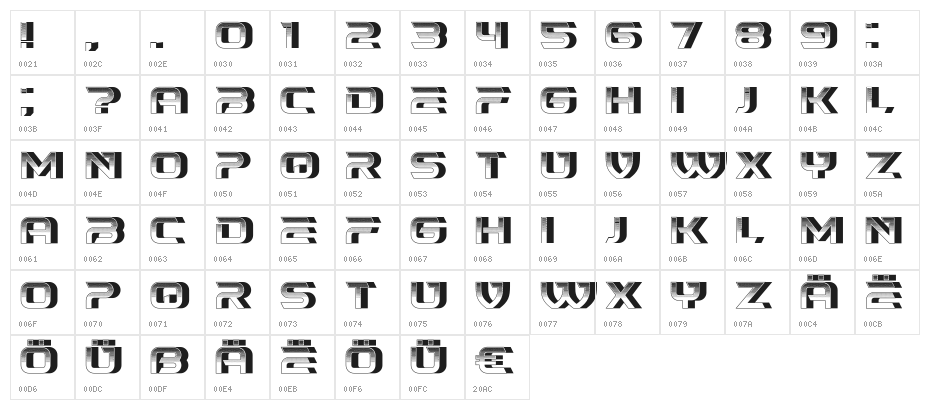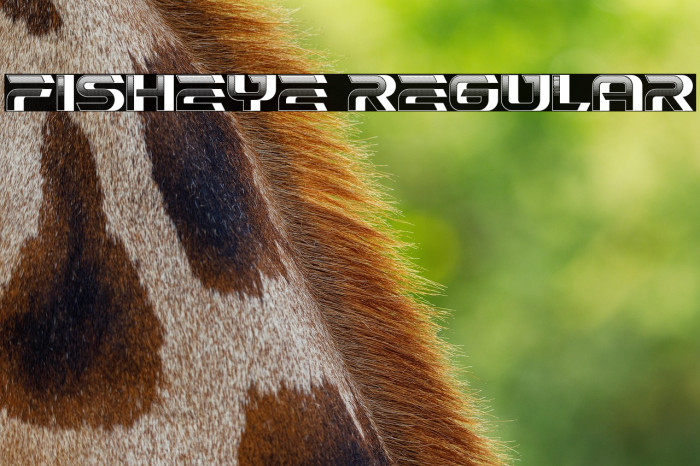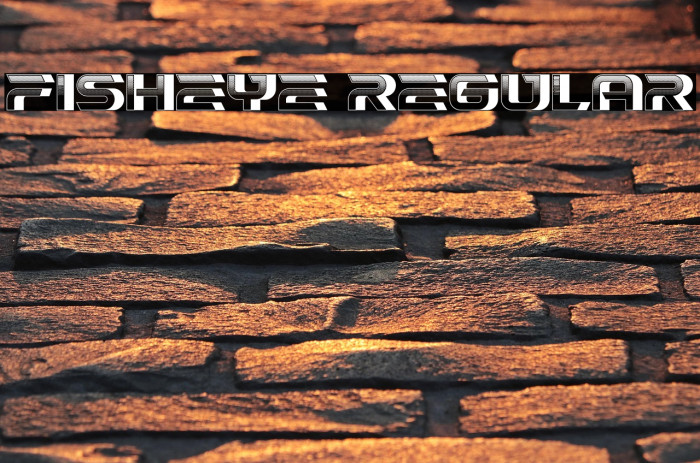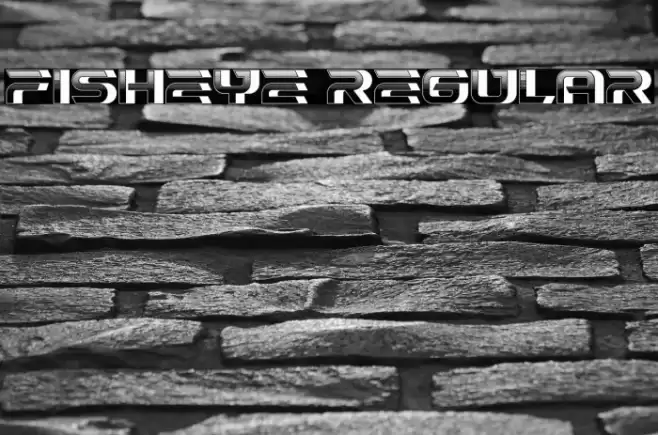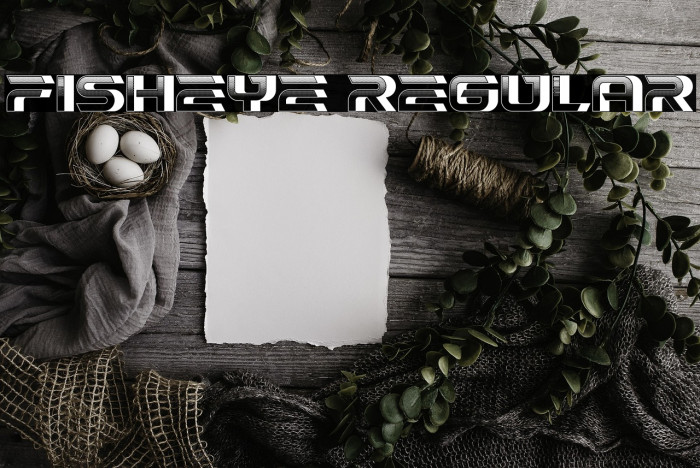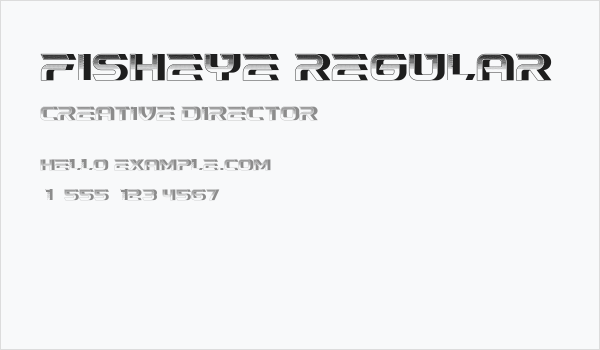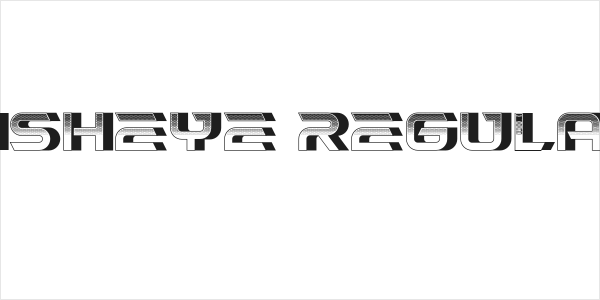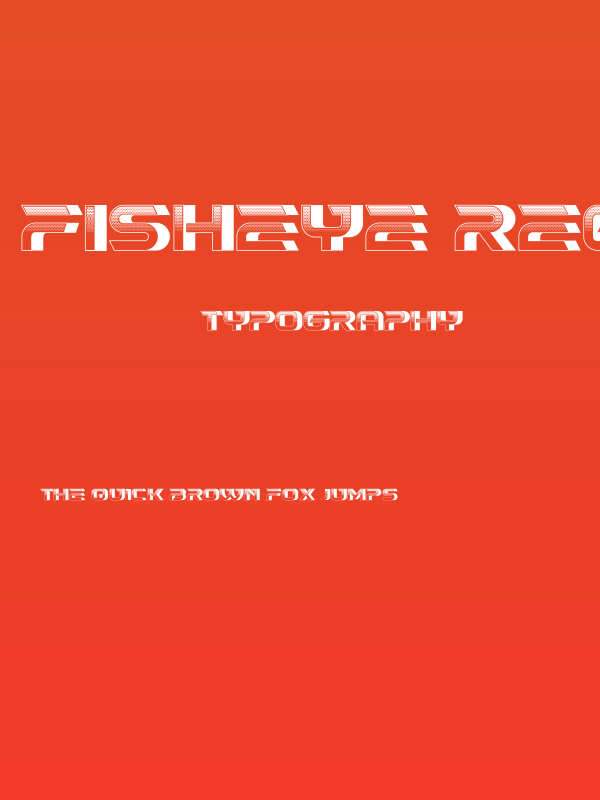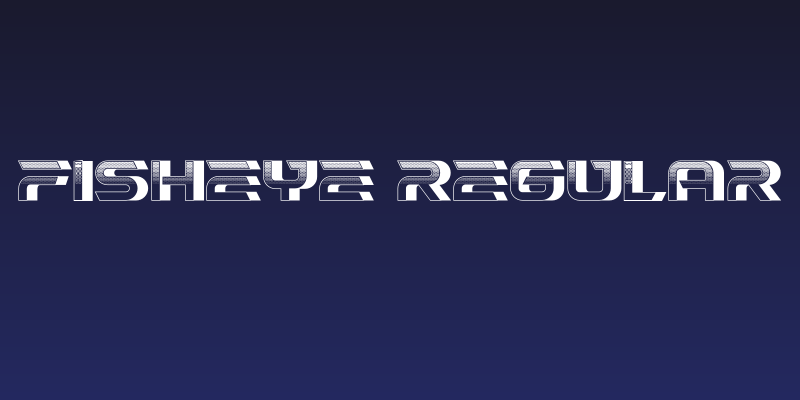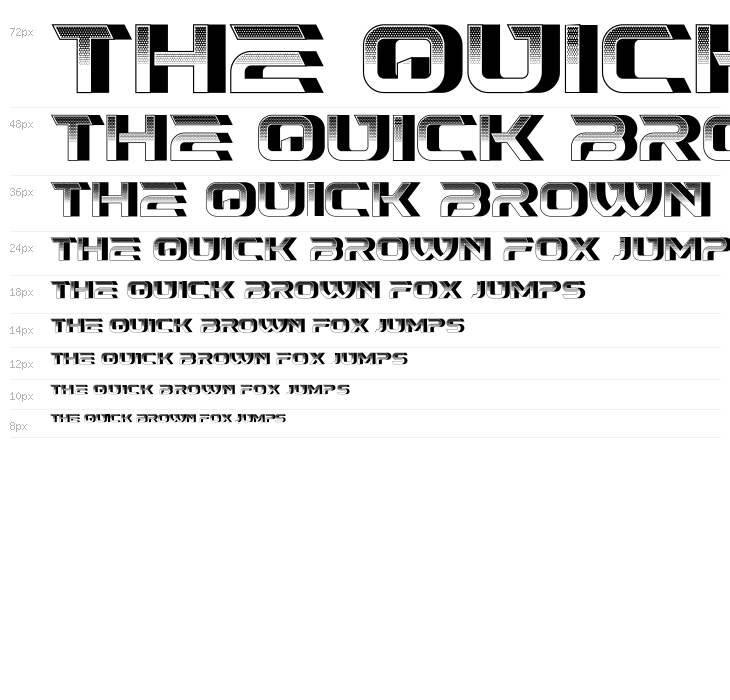
Fisheye Regular Font
Fisheye Regular Description
This font features a bold, futuristic design with a distinct 3D effect. The characters are constructed with thick, solid lines and incorporate a unique pattern of horizontal stripes that add depth and dimension. The geometric shapes and sharp angles give it a modern, tech-inspired look. The uppercase letters are particularly striking, with each character maintaining a consistent height and width, creating a uniform appearance. The numbers and special characters follow the same design principles, ensuring a cohesive style throughout. This font is ideal for projects that require a strong visual impact and a contemporary aesthetic.